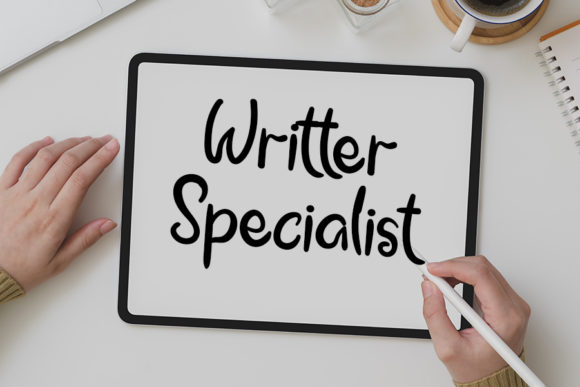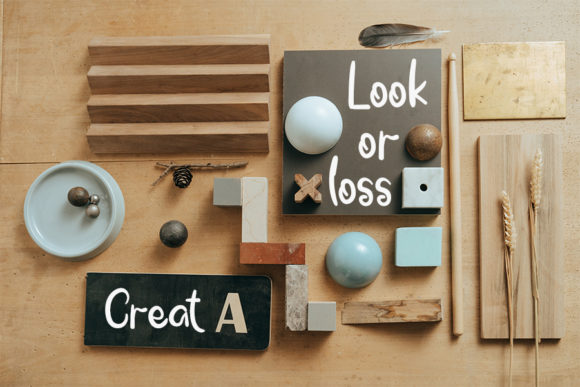
Original Handmade Font
db-ku.com - Script & Handwritten -- Original Handmade is a sweet and friendly handwritten font. Its natural and unique style makes it incredibly fitting to a large pool of designs. Let your imagination run free!